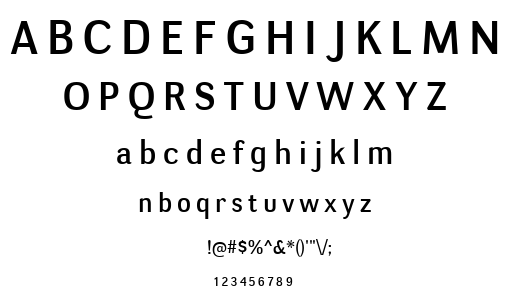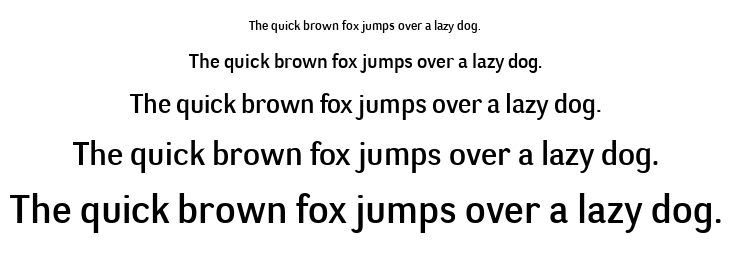
Negotiate is a sans-serif family in five weights. The OpenType format features old-style numerals. Supported languages include: Albanian, Bulgarian, Catalan, Croatian, Czech, Danish, Dutch, English, Esperanto, Estonian, Finnish, French, German, Greek, Hungarian, Icelandic, Irish, Italian, Latvian, Lithuanian, Norwegian, Polish, Portuguese, Serbian, Slovak, Spanish, Swedish, Turkish, Ukrainian & Welsh. Drop by typodermic.com and check out the rest of the Negotiate family.